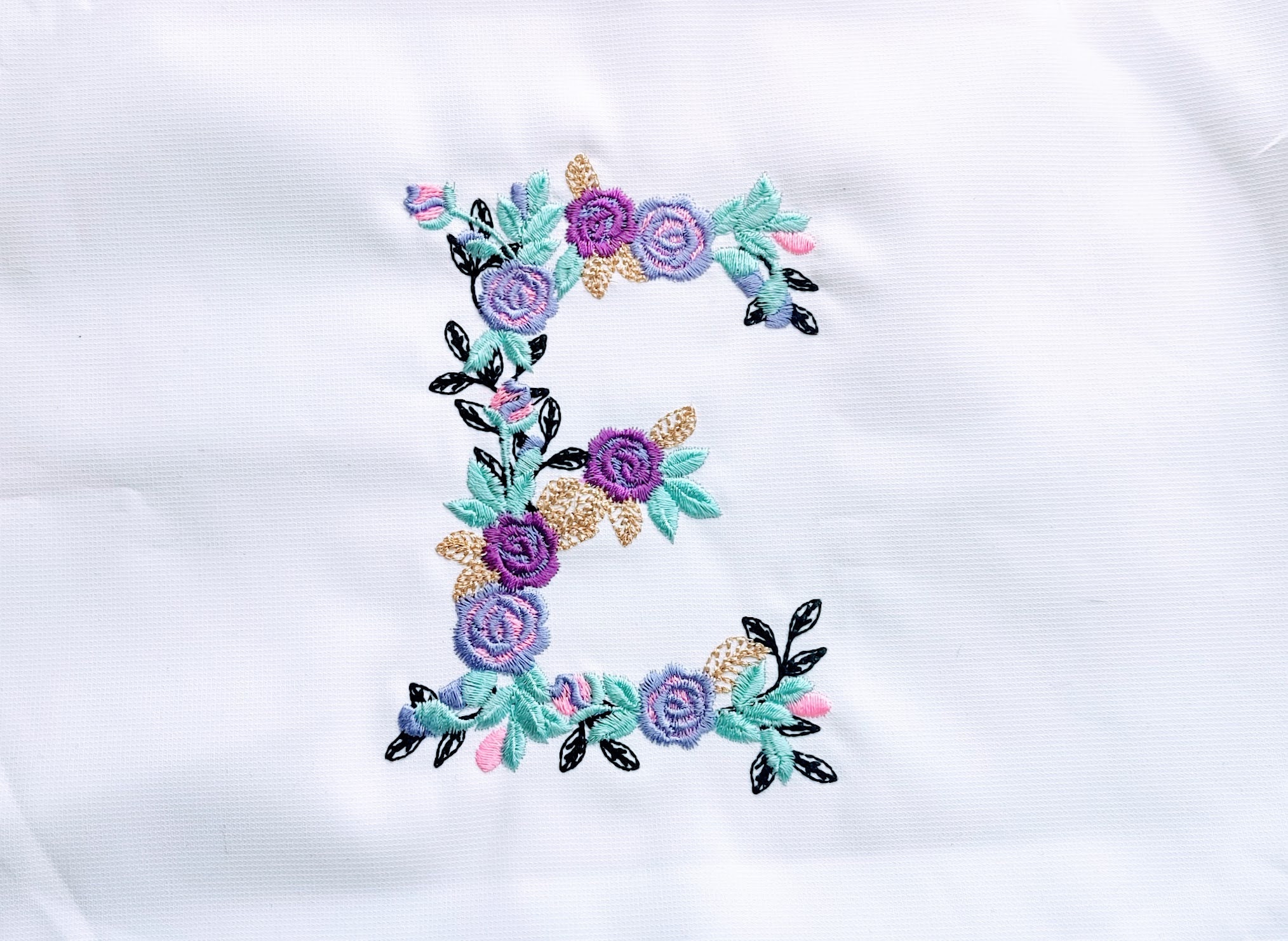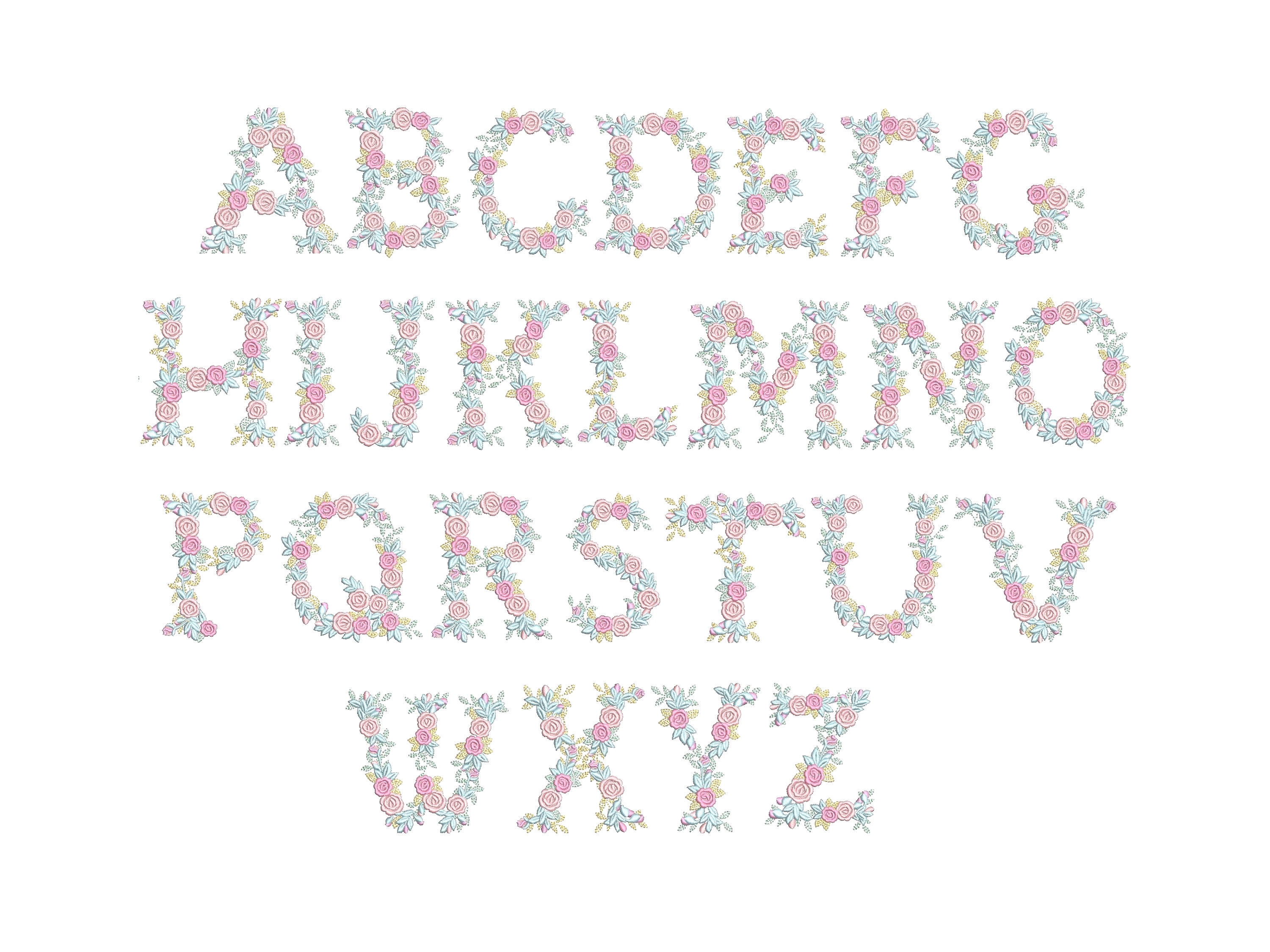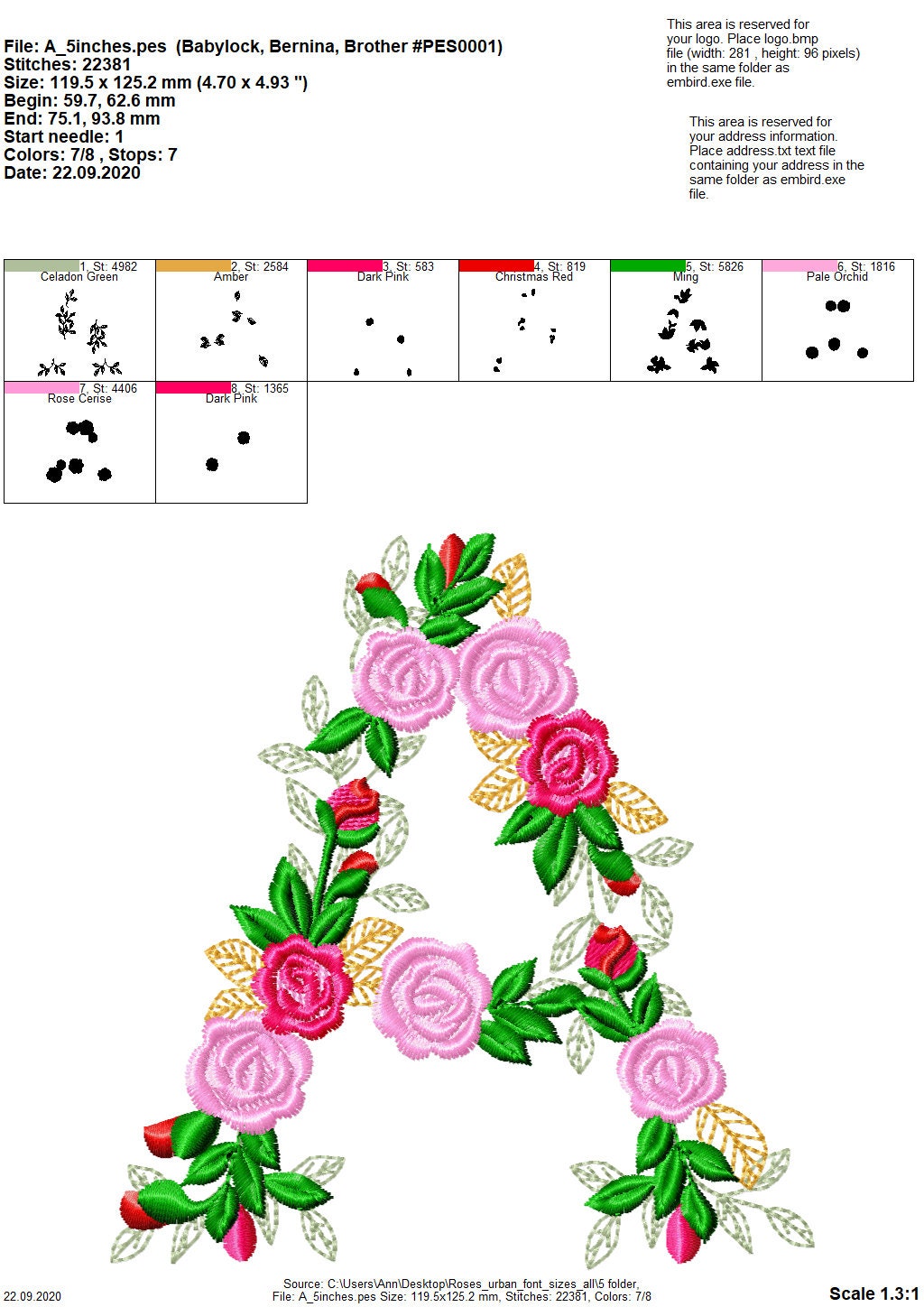
Delicate Roses Floral font alphabet garden flag monogram liberty fashioned flower Font machine embroidery designs 3, 4, 6, 7, 8" included BX
Letters A-Z
Quite dense but pretty when sticthed out